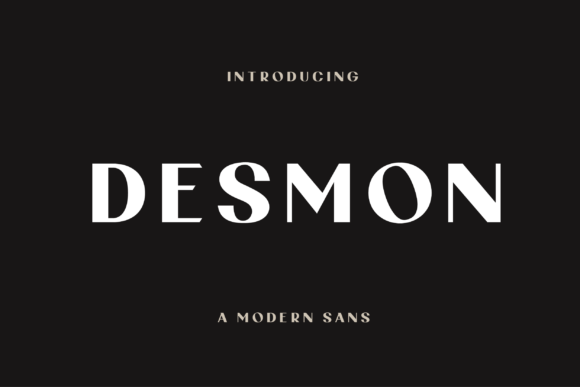
Dive into the world of modern typography with Desmon, a captivating sans serif font family that exudes sophistication and versatility. This meticulously crafted font, brought to life by the creative minds at yukitacreative, is a true gem that will transform your design projects into masterpieces.
Desmon is not just a font; it's a gateway to endless creative possibilities. Whether you're crafting stunning magazine layouts, eye-catching headlines, or sleek branding materials, Desmon will effortlessly elevate your designs, leaving a lasting impression on your audience.
With its clean lines, sharp edges, and a touch of elegance, Desmon seamlessly blends readability and visual appeal. Its distinct character adds a touch of sophistication to any project, whether it's a digital or print creation. Unleash your creativity and let Desmon be your guide as you navigate the world of typography.
Imagine your words dancing across the page, adorned with the grace and poise of Desmon. Its meticulously designed characters will bring your stories to life, captivating your readers with their undeniable charm. Whether you're a seasoned designer or just starting your creative journey, Desmon will be your steadfast companion, helping you turn your ideas into breathtaking realities.
Don't settle for ordinary fonts that blend into the background. Embrace Desmon, the font that commands attention and leaves a lasting impression. Its versatility knows no bounds, effortlessly adapting to a myriad of design styles and themes. From bold and edgy to classic and elegant, Desmon will seamlessly blend into your creative vision, enhancing your designs with its timeless appeal.
Join the ranks of creative professionals who have discovered the transformative power of Desmon. Experience the joy of crafting designs that resonate with your audience, leaving them spellbound by the beauty and impact of your typography. Desmon is more than just a font; it's an investment in your creative future, a key that unlocks a world of endless possibilities.